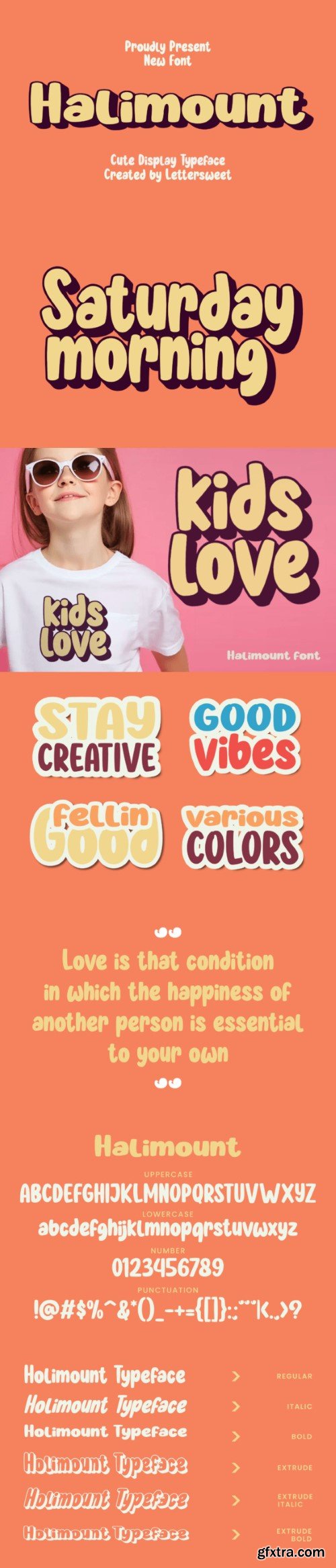
哈利 mounts 字体
Halimount is a fun and cute bold display font, inspired by cute bold typography. This font is perfect for a design that requires a playful and fun accent. Halimount is suitable for book covers, posters, packaging, merchandise, logotype, and much more.